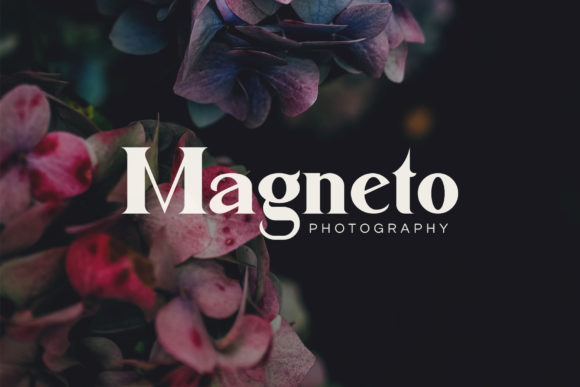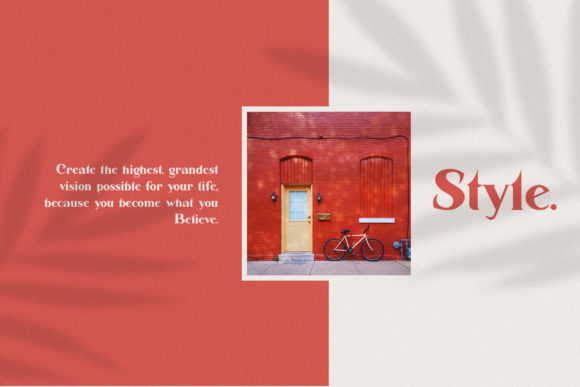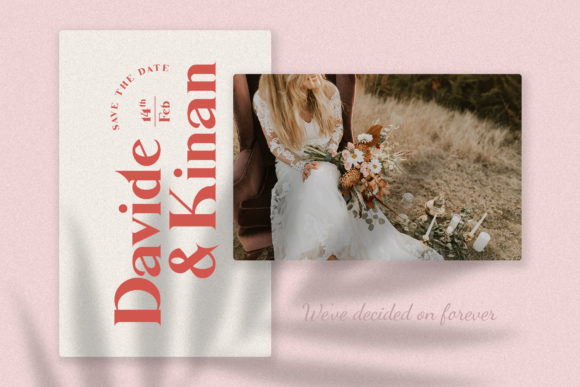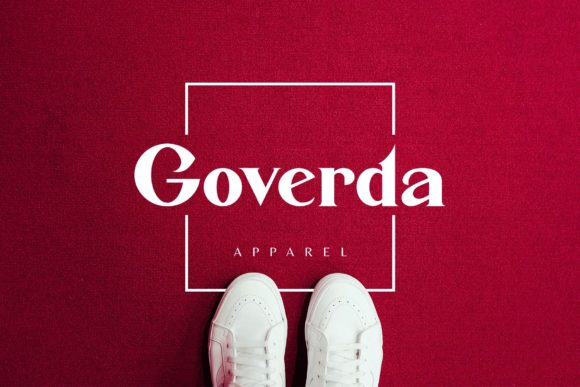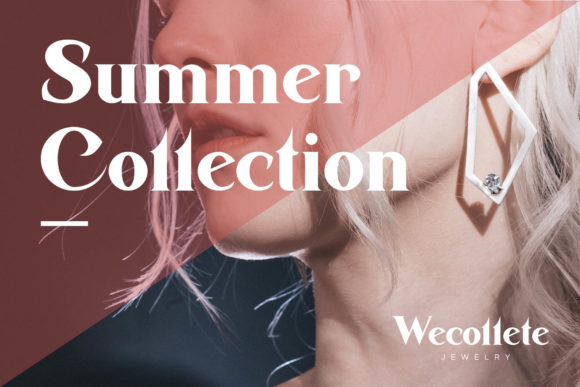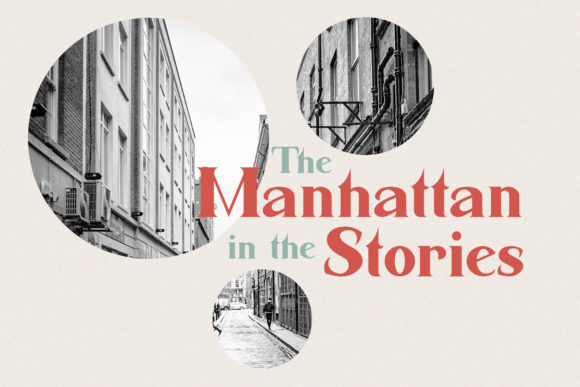
Discover the Elegance of Balya Font: Elevate Your Design Projects with its Unique Charm
Are you a designer or crafter looking for a font that can add a touch of sophistication and elegance to your projects? Look no further than Balya Font. This gorgeous and light serif font is designed to turn any design project into a true piece of art. With its unique charm and versatility, Balya Font is the perfect choice for anyone looking to create stunning visual content.
What Makes Balya Font So Special?
Balya Font is a carefully crafted serif font that boasts a range of characteristics that set it apart from other fonts. Its light and elegant design makes it perfect for use in a variety of design projects, from luxury branding and advertising to packaging and editorial design. The font’s unique charm lies in its subtle yet distinctive features, including its refined serifs and elegant letterforms.
Key Features of Balya Font
- Light and Elegant Design: Balya Font features a light and elegant design that is perfect for creating sophisticated and refined visual content.
- Serif Font: As a serif font, Balya Font features small lines or flourishes at the end of each letterform, adding a touch of classic elegance to any design project.
- Unique Charm: Balya Font’s unique charm lies in its subtle yet distinctive features, including its refined serifs and elegant letterforms.
- Versatile: Balya Font is a versatile font that can be used in a variety of design projects, from luxury branding and advertising to packaging and editorial design.
How to Use Balya Font in Your Design Projects
Using Balya Font in your design projects is easy. Here are a few tips to get you started:
- Pair it with Other Fonts: Balya Font pairs perfectly with other fonts, including sans-serif fonts and script fonts. Experiment with different font combinations to create a unique and eye-catching design.
- Use it for Headings and Titles: Balya Font is perfect for use in headings and titles, where its elegant design can add a touch of sophistication and refinement.
- Experiment with Different Colors and Textures: Balya Font looks great in a range of colors and textures. Experiment with different combinations to find the one that works best for your design project.
Benefits of Using Balya Font
There are many benefits to using Balya Font in your design projects. Here are a few:
- Elegance and Sophistication: Balya Font adds a touch of elegance and sophistication to any design project, making it perfect for luxury brands and high-end designs.
- Versatility: Balya Font is a versatile font that can be used in a variety of design projects, from print to digital.
- Unique Charm: Balya Font’s unique charm sets it apart from other fonts, making it a great choice for designers looking to create something truly unique.
In conclusion, Balya Font is a gorgeous and light serif font that is perfect for designers and crafters looking to add a touch of elegance and sophistication to their design projects. With its unique charm and versatility, Balya Font is a great choice for anyone looking to create stunning visual content. Whether you’re working on a luxury branding project or a craft project, Balya Font is sure to inspire and elevate your design.